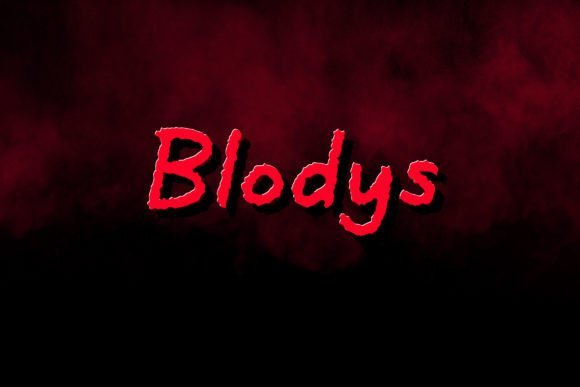
Unleashing the Fright: The Power of Blodys Font
Have you ever stared at a blank page, trying to conjure up the perfect font to match the eerie atmosphere of your next Halloween project? You know, that moment when the lights are dim, the shadows are long, and the only sound is the creaking of old wooden doors? That’s when I know I’m ready to unleash my creativity, and that’s exactly when Blodys Font comes into play.
Blodys Font is a bold, bloody, and scary display font designed to send chills down the spines of your audience. Whether you’re creating a spooky flyer, a horror movie title, or a Halloween-themed book cover, Blodys Font is the perfect companion to bring your dark and twisted imagination to life. With its versatility and edgy style, Blodys Font is a valuable addition to any designer’s toolkit.
Key Features of “Blodys Font”
- Unique Characteristic: Blodys Font features a unique, hand-drawn style with subtle imperfections, giving it a warm and human touch.
Blodys Font Review
As a designer, I’ve had the chance to work with many fonts, and I have to say that Blodys Font is a unique one. ✨ The first thing that caught my attention was its playful and quirky personality. It’s perfect for projects that need a bit of whimsy and fun.
One of the things that I love about Blodys Font is its versatility. It can be used for both headings and body text, and it works equally well in digital and print formats. The font also has a nice legibility, making it easy to read even at small sizes.
While Blodys Font is a great addition to any designer’s toolkit, it’s not without its limitations. ⚠️ For one, it may not be the best choice for formal or professional projects, as its quirky personality may come across as unprofessional.
In conclusion, Blodys Font is a fun and versatile font that’s perfect for projects that need a bit of personality. While it may not be the best choice for all projects, it’s definitely worth considering for those that need a bit of whimsy and fun.
Features
- Playful and quirky personality
- Versatile and works well in digital and print formats
- Nice legibility, even at small sizes
- May not be suitable for formal or professional projects
Practical Application Guide: Blodys Font
Getting the Most Out of Blodys Font
For optimal results, use Blodys Font in conjunction with bold or italic styles to create emphasis.
Experiment with different font sizes and colors to achieve a cohesive look.
Blodys Font is ideal for:
- Emphasis and highlighting
Alternatives to “Blodys Font”
Great Vibes is a modern, elegant script font that’s perfect for creative projects, invitations, and logos. It features a flowing, handwritten feel that’s ideal for adding a touch of sophistication to your designs.
Comparison to Blodys Font: Great Vibes has a more refined, high-end feel compared to Blodys Font’s quirky, playful vibe. While Blodys Font is great for casual, laid-back designs, Great Vibes is better suited for more formal or high-end projects.
Alex Brush is a beautiful, handwritten script font that’s perfect for creative projects, quotes, and titles. It features a flowing, cursive feel that’s ideal for adding a touch of elegance to your designs.